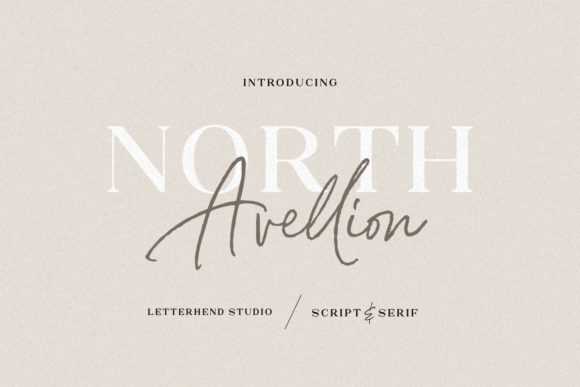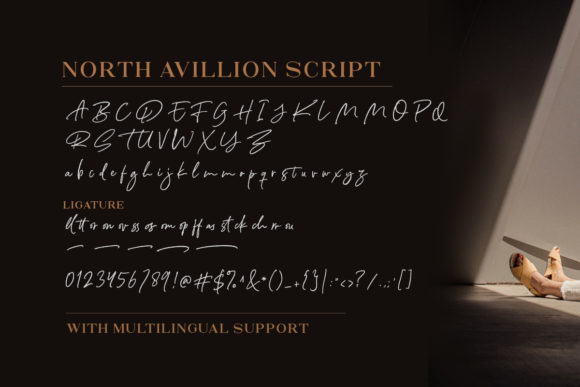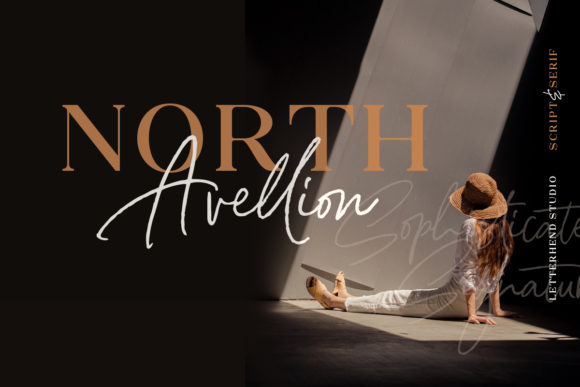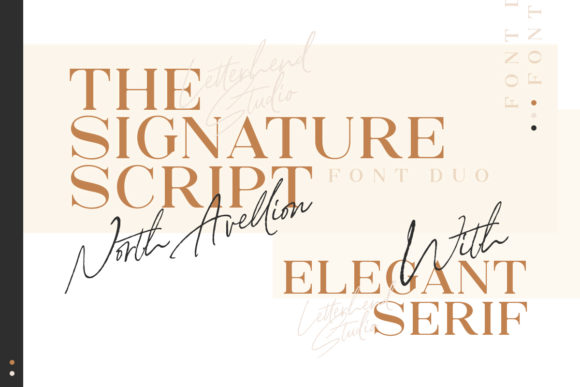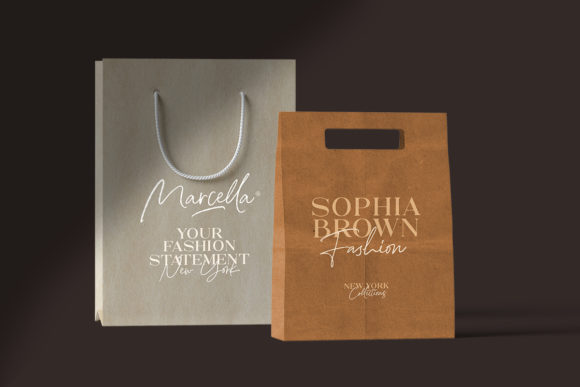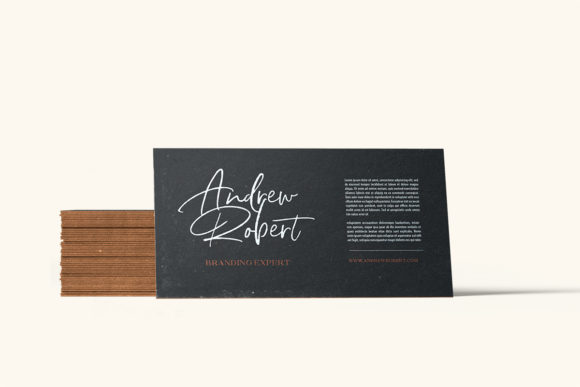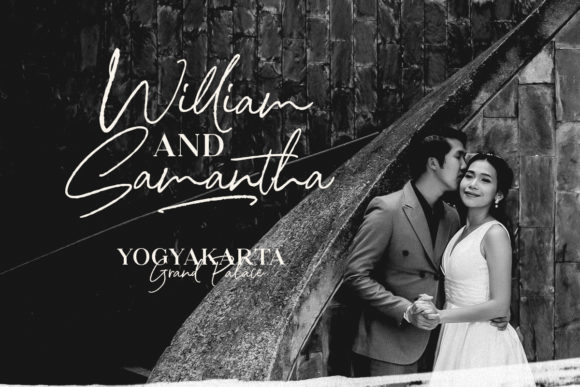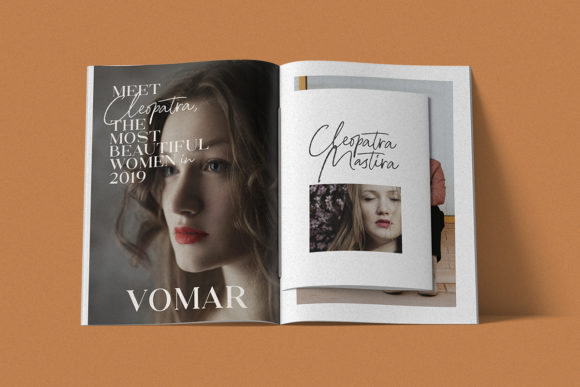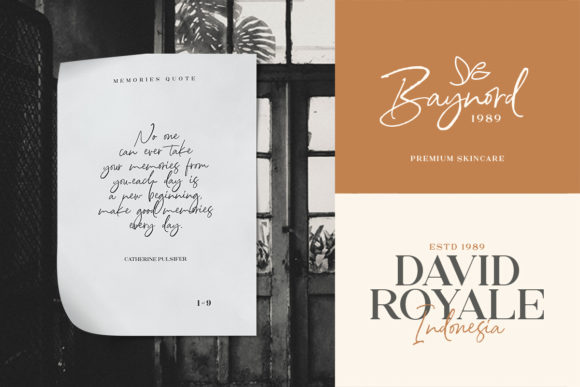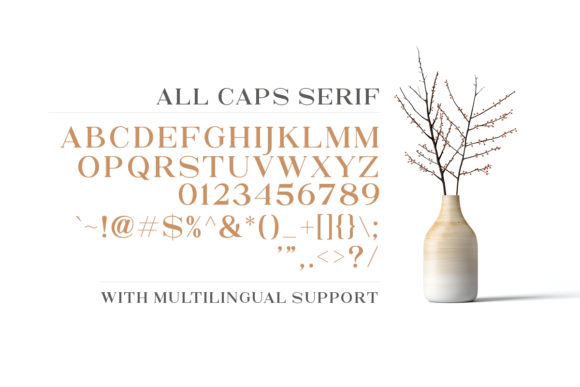
HomeScript FontsNorth Avellion Duo Font Script Fonts North Avellion Duo Font FacebookXPinterestWhatsApp North Avellion Duo Font Poster 2 North Avellion Duo Font Poster 3 North Avellion Duo Font Poster 4 North Avellion Duo Font Poster 5 North Avellion Duo Font Poster 6 North Avellion Duo Font Poster 7 North Avellion Duo Font Poster 8 North Avellion Duo Font Poster 9 North Avellion Duo Font Poster 10 About North Avellion Duo Font North Avellion Duo is a stunning font duo that brings together two truly unique and sweet fonts. DOWNLOAD ON CREATIVE FABRICAThis font is sold and delivered by Creative Fabrica. Font Canyon may earn a commission if you buy through this link. People also explored King Billy Font Vintage Photography Studio Hologram Font Ganerha Authentic Font Golden Dates Font Unbridled Font Shakila Font Fantastic Font Delaney Nicholas Font 293 0 TagsNorth Avellion Duo Font Previous articleDjoker State FontNext articleClana Font LEAVE A REPLY Cancel reply Comment: Please enter your comment! Name:* Please enter your name here Email:* You have entered an incorrect email address! Please enter your email address here Website: Save my name, email, and website in this browser for the next time I comment. Personal Use Free Mixed Artistry Personal Use Free Read more about this font Yesstea Personal Use Free Read more about this font Twisty Girlz Personal Use Free Read more about this font Goldsaber Personal Use Free Read more about this font BLOG Top 10 Handwritten Fonts That Elevate Your Designs Top 10 Handwritten Fonts That Will Elevate Your Designs Handwritten fonts bring a warm, personal touch to every creative project. Whether you're designing logos, invitations,... How to Cut Any Font on Cricut: Convert a Font to SVG (Free) How to Install and Use Fonts on Windows, macOS, and Web Projects To increase your work productivity, choose the most readable fonts.